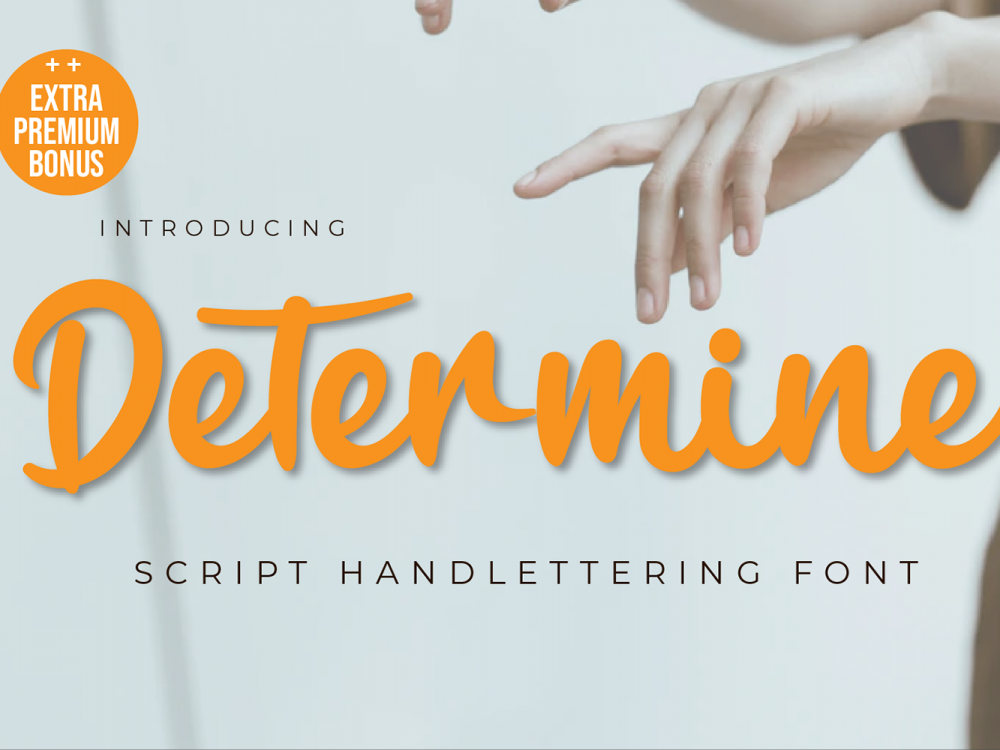
Determine Free Font
Determine Free Font is an interesting modern handwritten font that features a calligraphic style. This font is very suitable for creating various projects that require a scripted handwritten font. You can use this font to create memorable romantic posters, branding projects, logos, wedding designs, social media posts, advertisements, product packaging, product designs, label, photography, watermark, invitation, stationery, and more. If you like it don’t forget to check out the full version.